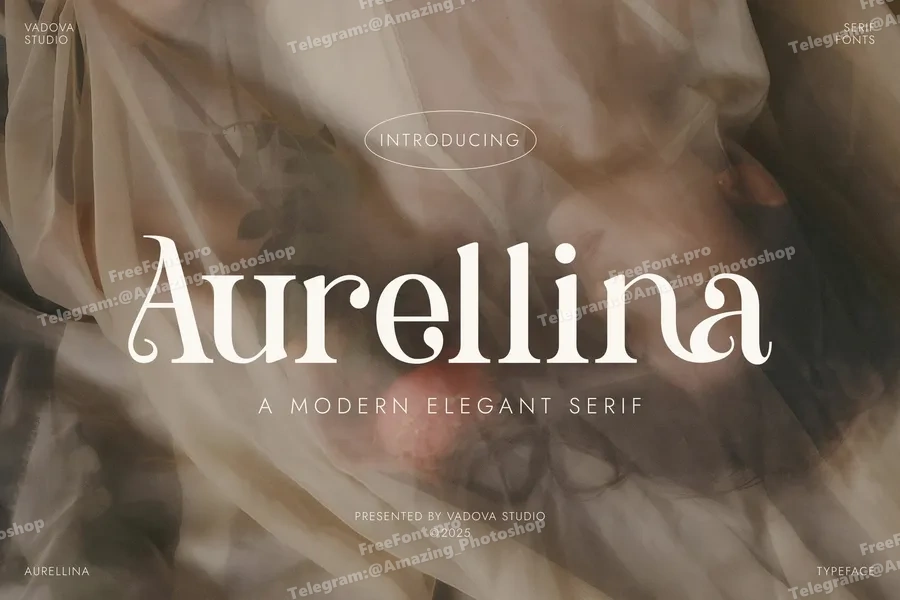
Aurellina is a modern and stylish serif font designed to elevate branding, editorial layouts, and elegant invitations. With its graceful curves, refined letterforms, and handcrafted details, this typeface blends sophistication with a contemporary touch. Perfect for wedding invitations, beauty showcases, luxury branding, and creative design templates, Aurellina adds a timeless aesthetic to both digital and print projects. It’s an ideal choice for those seeking refined typography with a soft artistic edge.